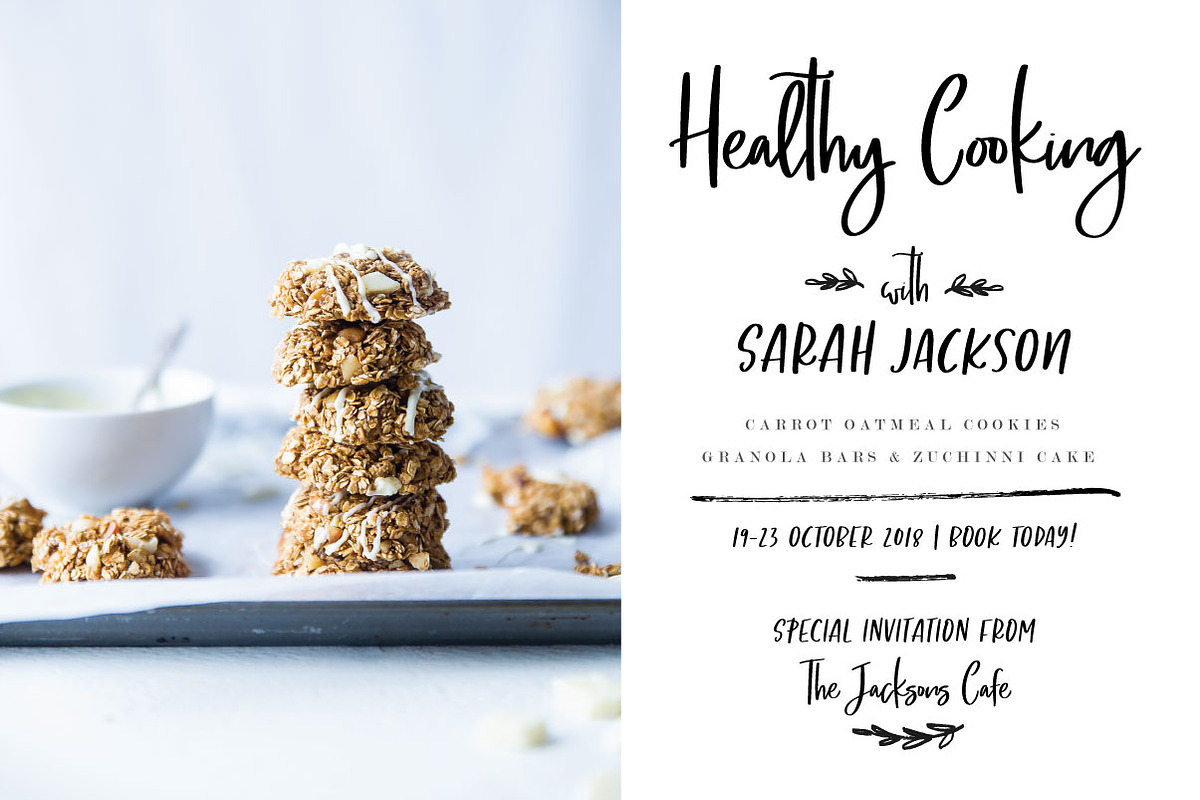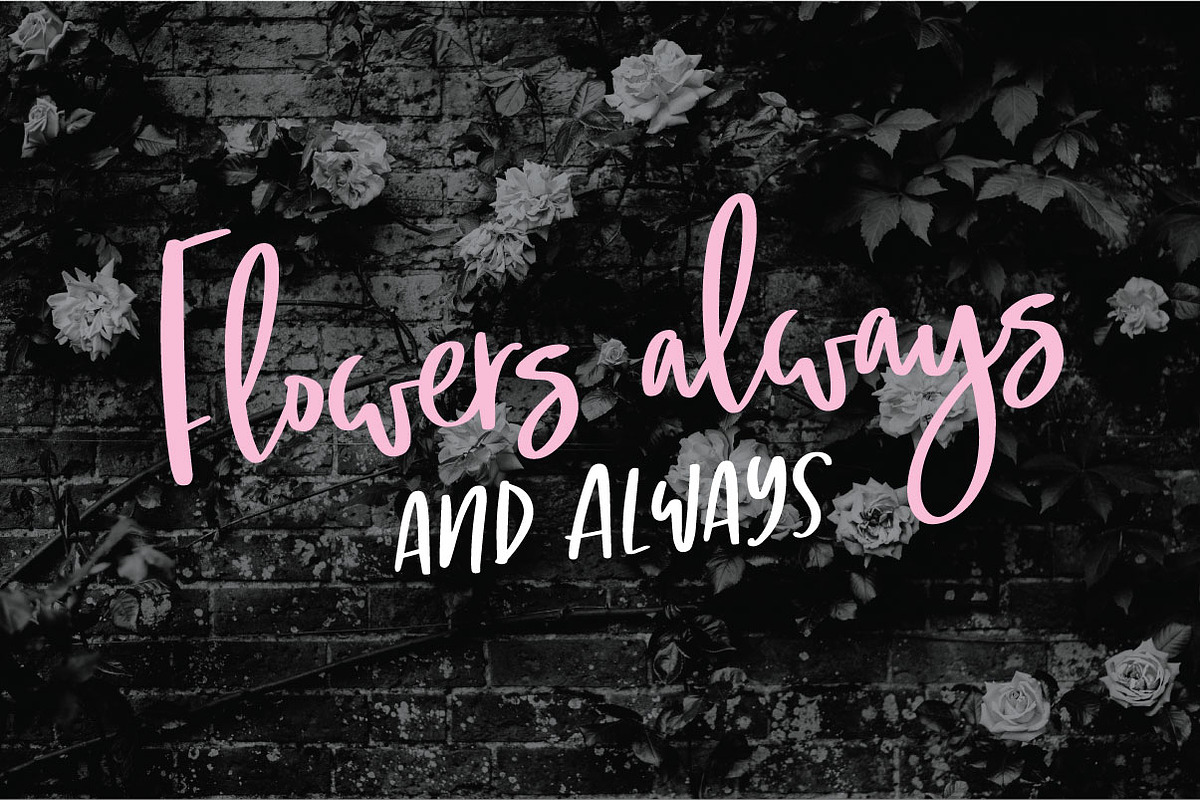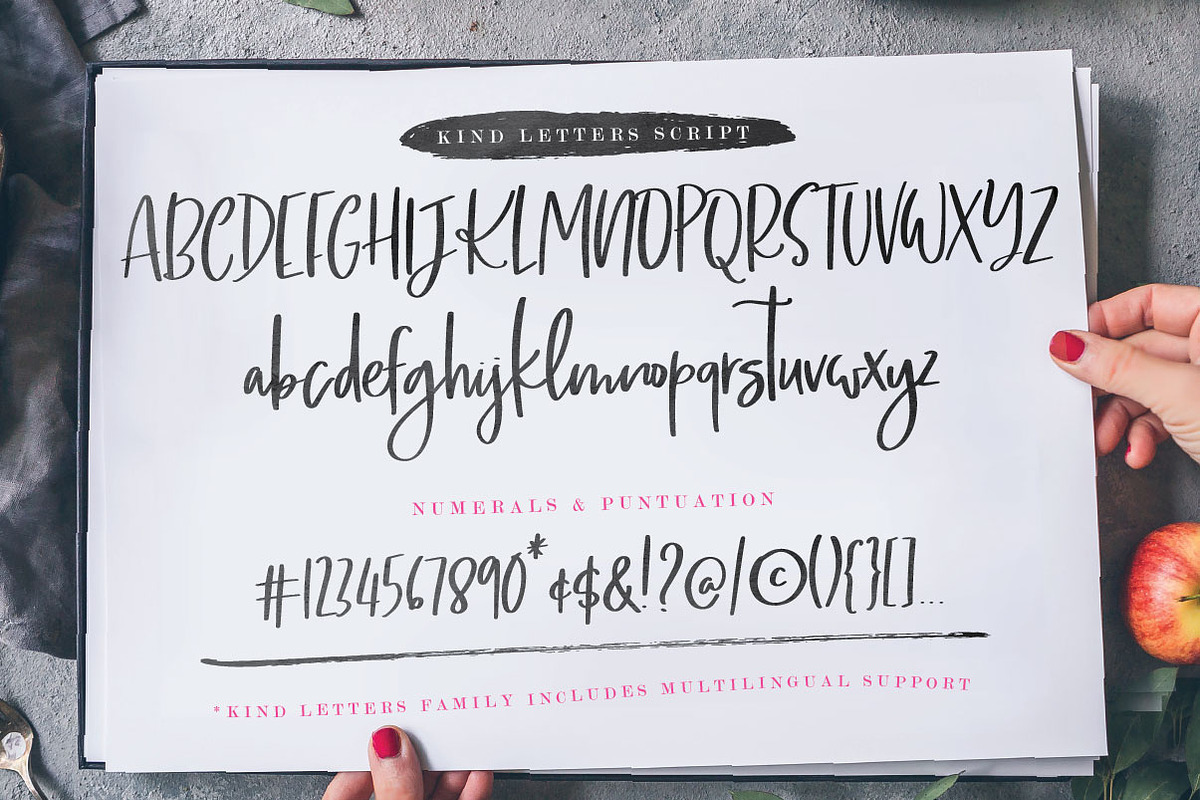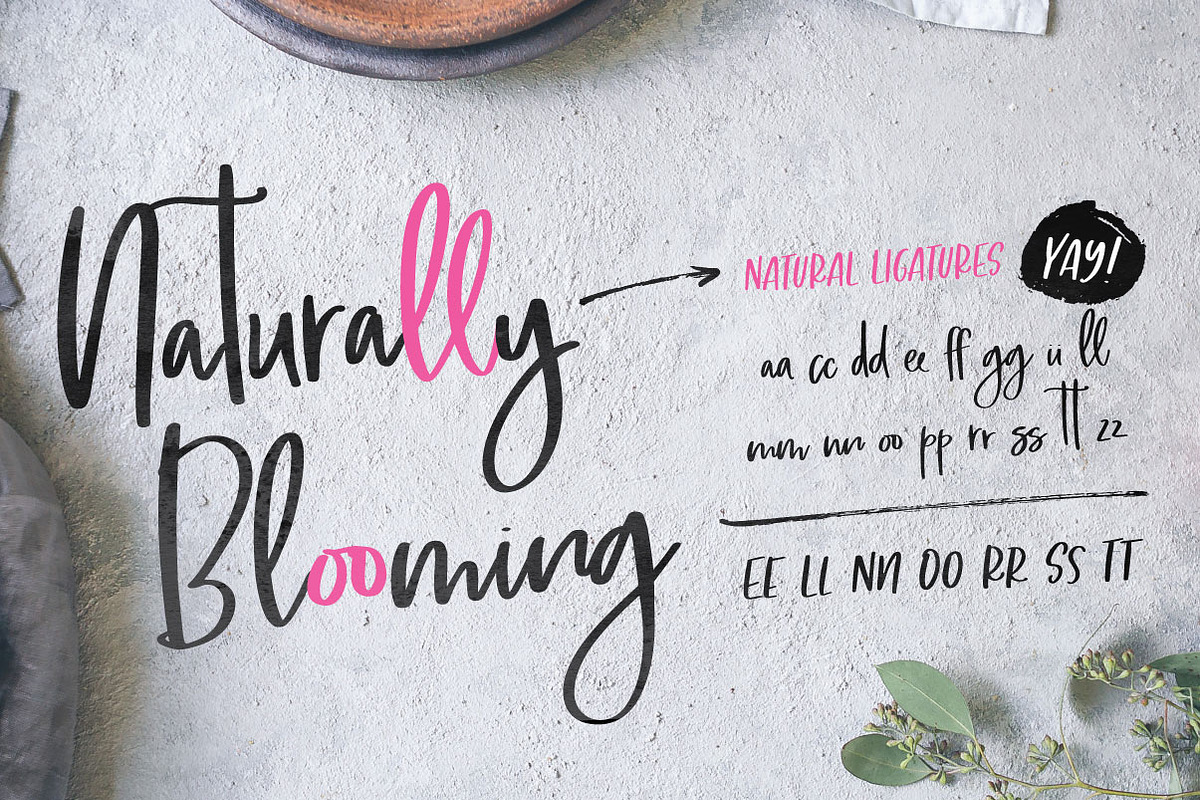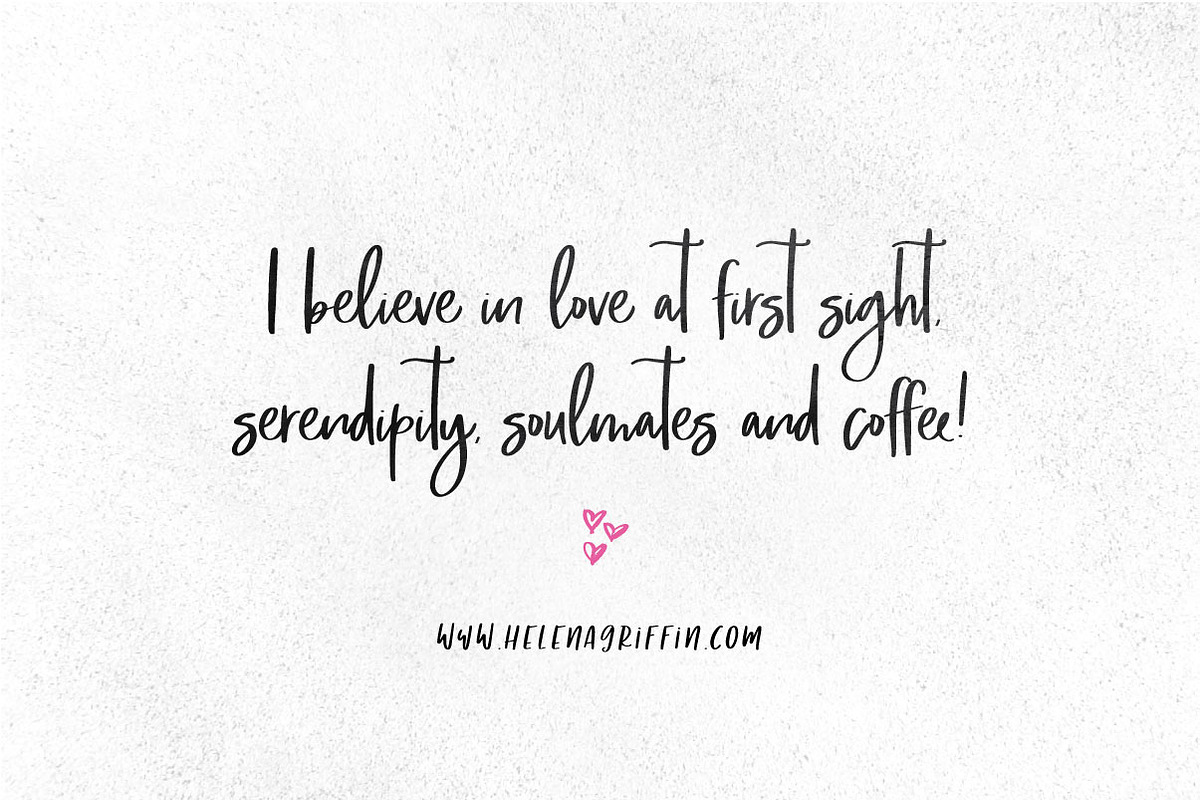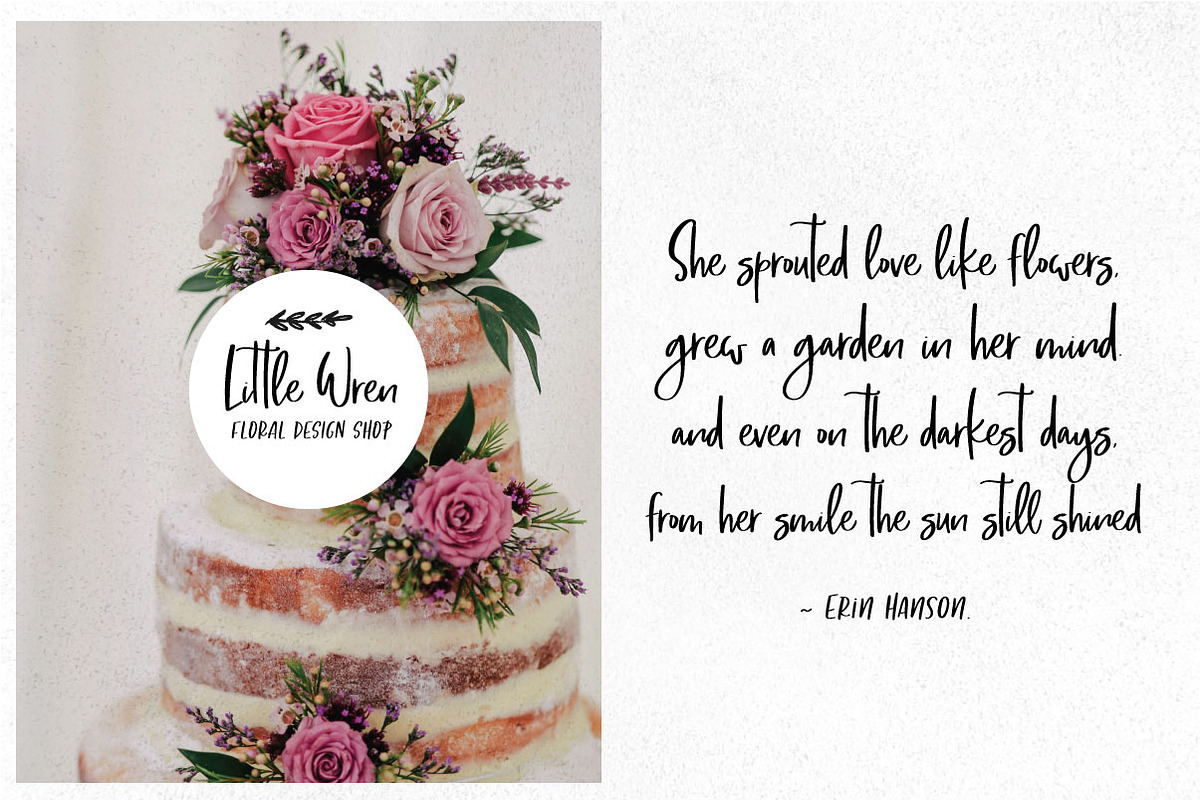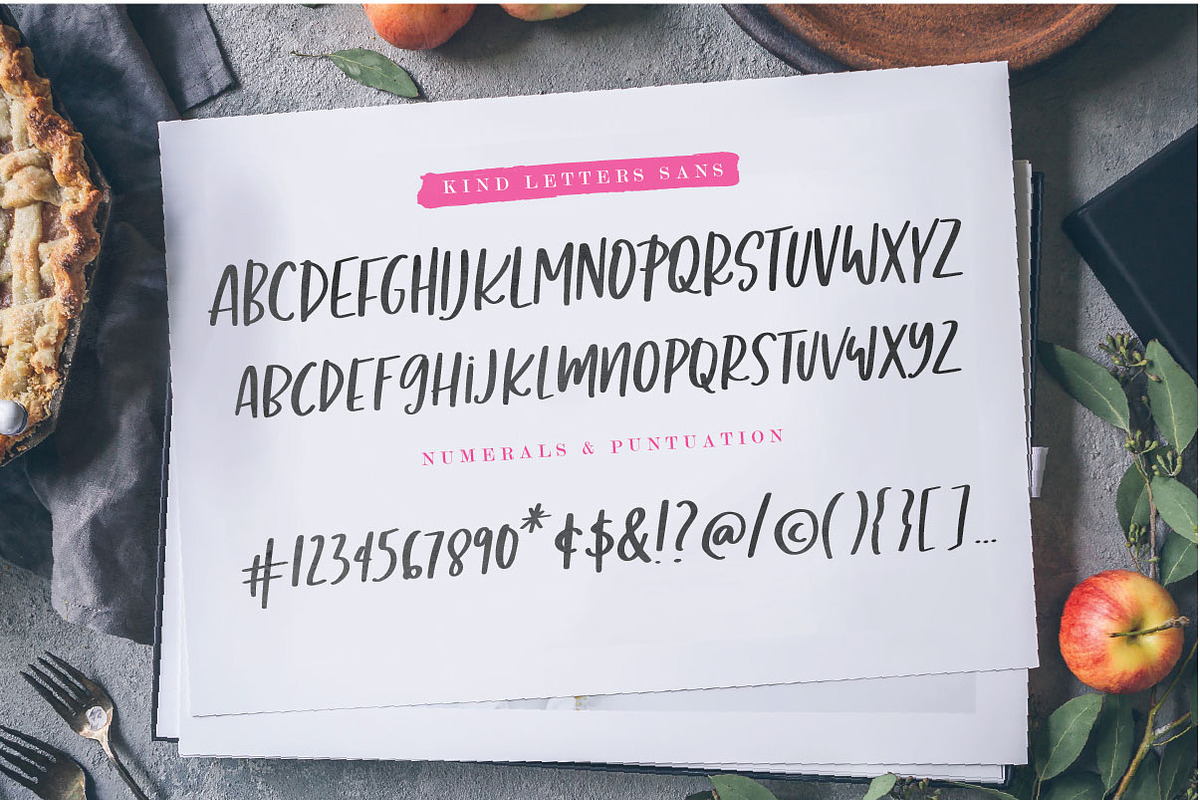
Kind Letters font duo
Kind Letters is the perfect combination of a marker, a handwriting technique and the script style. With catchy, trendy and organic shapes, Kind Letters is all about the perfect balance between delicate handmade traces and making it seem playful as a whole.
This particular font fits perfectly with logos, titles, body texts, quotes, or even if you're looking to make phrases and specific parts of your text to stand out. Kind Letters will be a great complement while developing your next design project.
It features beautiful ligatures to make it feel carefree with naturally done handwritings, you will be amazed by its versatility and how gorgeous it looks with any word or text!
Full upper and lowercase
Numerals and Punctuation
Accents (Multi-lingual support)
Double Letter Ligatures (Script & Sans)